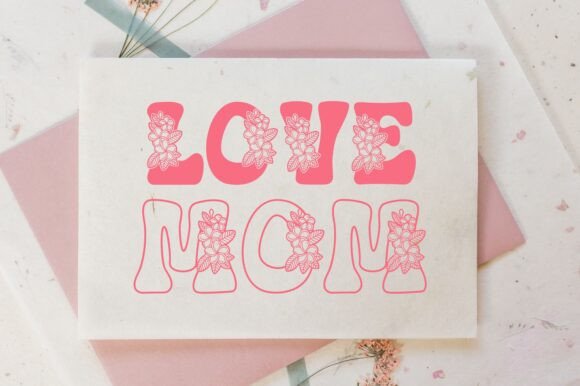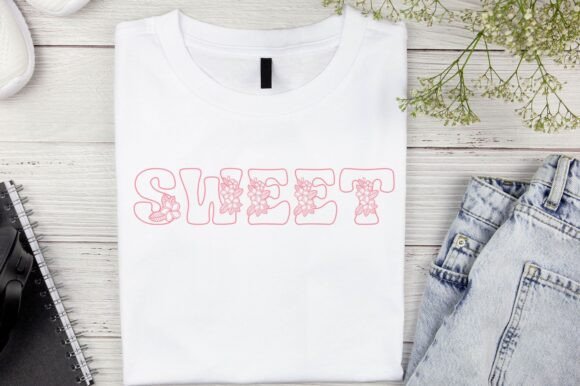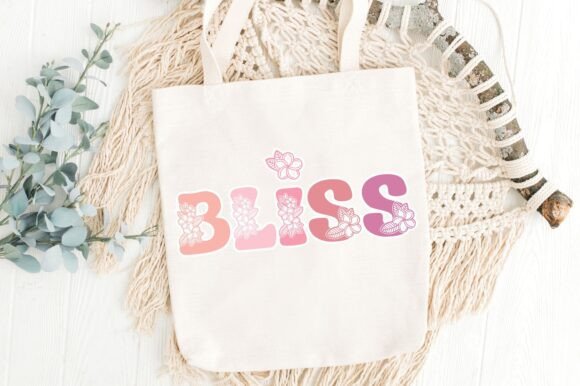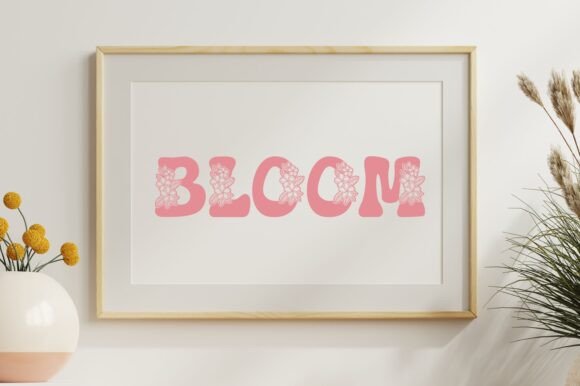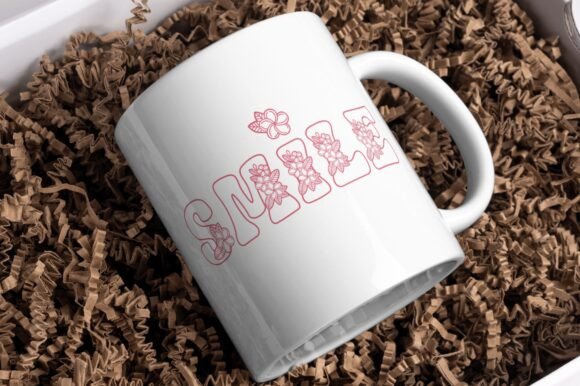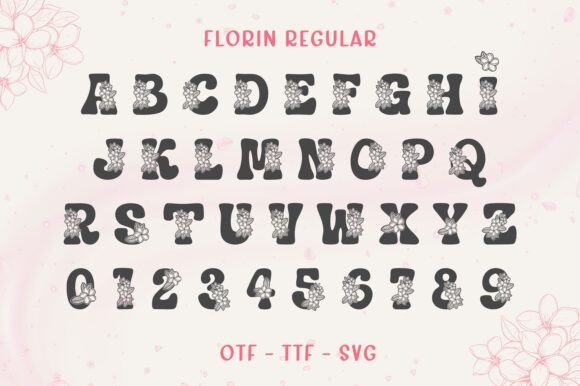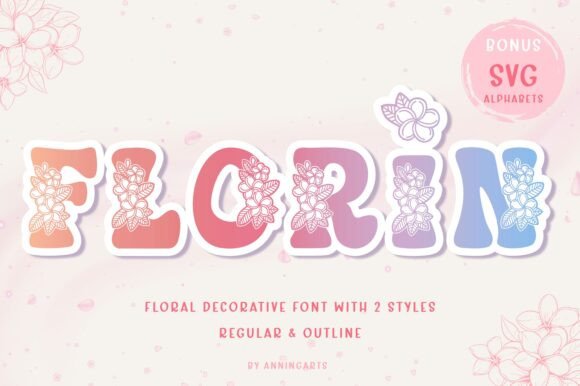
Introducing Florin Font: The Playful, Floral Decorative Font for Creative Projects
Are you a designer or crafter looking for a font that adds a touch of playfulness and whimsy to your projects? Look no further than Florin Font, a beautiful, floral decorative font that’s perfect for creating eye-catching headers, children’s projects, seasonal greeting cards, and branding with a youthful twist.
What is Florin Font?
Florin Font is a digital font that features a playful, floral design with colorful gradient styling and embedded flower illustrations. The font comes in both regular and outline styles, giving you flexibility and versatility for your creative projects.
Key Features of Florin Font
- Playful and Floral Design: Florin Font features a beautiful, floral design that’s perfect for projects that require a touch of whimsy and playfulness.
- Colorful Gradient Styling: The font comes with colorful gradient styling that adds depth and dimension to your text.
- Embedded Flower Illustrations: Florin Font features embedded flower illustrations that add a touch of elegance and sophistication to your projects.
- Regular and Outline Styles: The font comes in both regular and outline styles, giving you flexibility and versatility for your creative projects.
Florin Font is perfect for a variety of creative projects, including:
- Eye-Catching Headers: Use Florin Font to create eye-catching headers for your website, blog, or social media channels.
- Children’s Projects: The font’s playful and whimsical design makes it perfect for children’s projects, such as children’s books, activity sheets, and educational materials.
- Seasonal Greeting Cards: Florin Font is perfect for creating seasonal greeting cards, such as Christmas cards, Easter cards, and Mother’s Day cards.
- Branding with a Youthful Twist: Use Florin Font to add a touch of playfulness and whimsy to your branding, packaging, and marketing materials.
Why Choose Florin Font?
There are many reasons why you should choose Florin Font for your creative projects. Here are a few:
- Unique and Creative Design: Florin Font features a unique and creative design that’s sure to stand out from the crowd.
- Flexible and Versatile: Florin Font comes in both regular and outline styles, making it flexible and versatile for a variety of creative projects.
- High-Quality Design: The font is designed with high-quality graphics and comes with a range of features, including colorful gradient styling and embedded flower illustrations.
Tips for Using Florin Font
Here are a few tips for using Florin Font in your creative projects:
- Experiment with Different Colors: Florin Font comes with colorful gradient styling, so experiment with different colors to find the perfect combination for your project.
- Use the Outline Style for Added Versatility: The outline style of Florin Font is perfect for adding a touch of elegance and sophistication to your projects.
- Pair with Other Fonts: Florin Font can be paired with other fonts to create a unique and creative look.
Florin Font is a beautiful, floral decorative font that’s perfect for creative projects that require a touch of playfulness and whimsy. With its colorful gradient styling and embedded flower illustrations, Florin Font is sure to add a touch of elegance and sophistication to your projects. Whether you’re a designer or crafter, Florin Font is a great choice for eye-catching headers, children’s projects, seasonal greeting cards, and branding with a youthful twist.